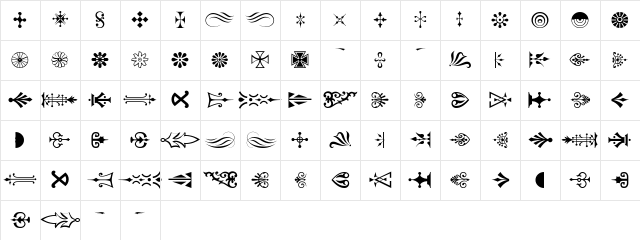
PCOrnaments Regular
Design Context for PCOrnaments
PCOrnaments is built around its visual character rather than neutral utility - its distinctive forms are designed to make an impression at display sizes.
Font Pairing: Pair with a clean neutral sans-serif for body copy to let PCOrnaments's character lead without overwhelming the composition.
Pro Tip: Use PCOrnaments exclusively at display sizes - it was designed to be seen, not read at length. Let a neutral companion handle body copy.